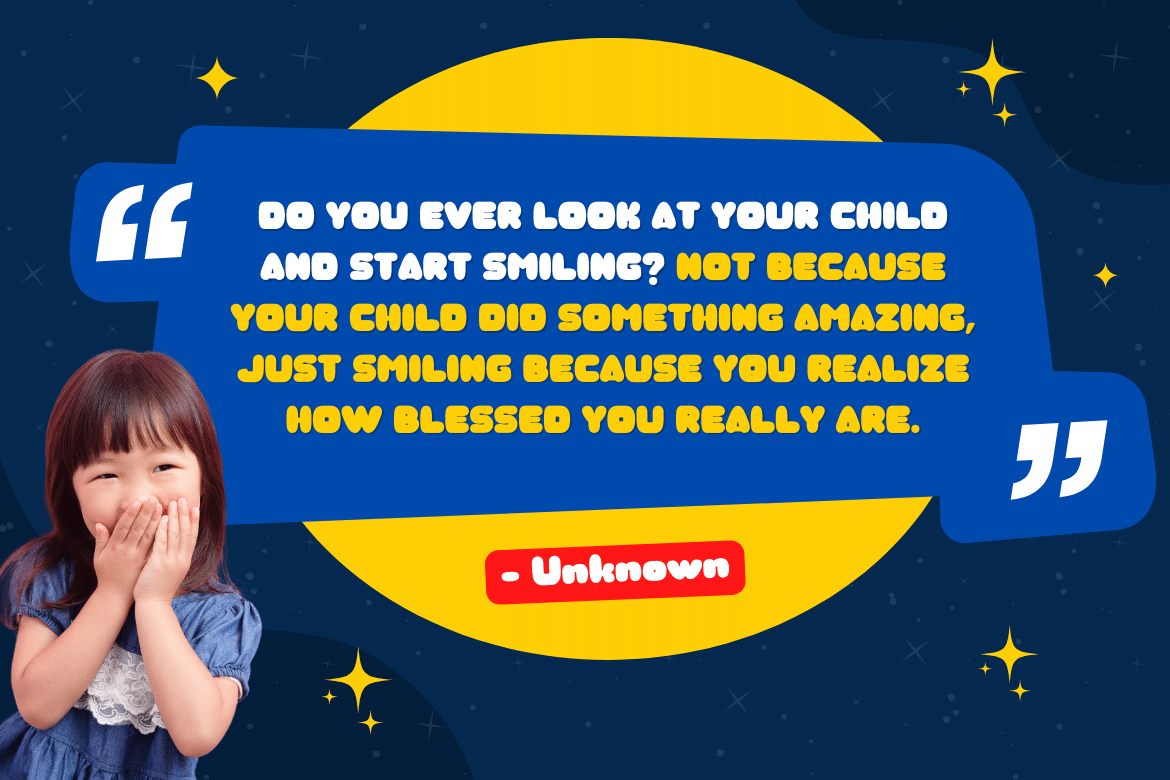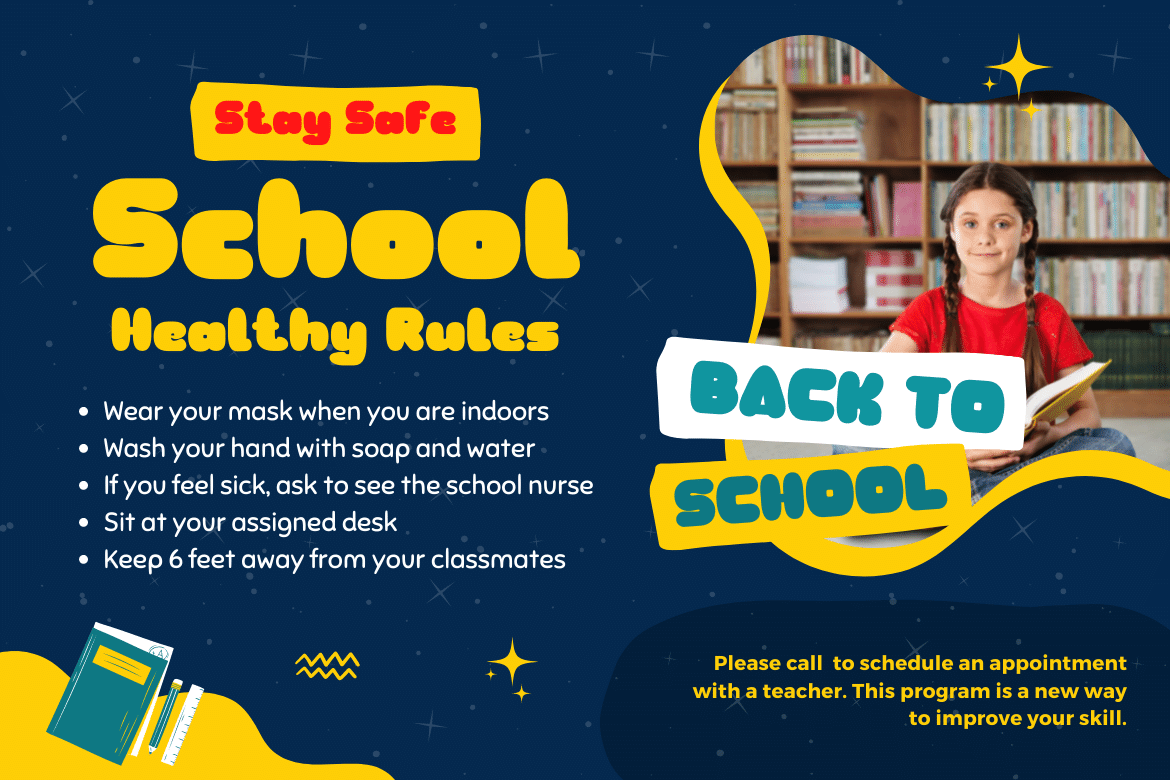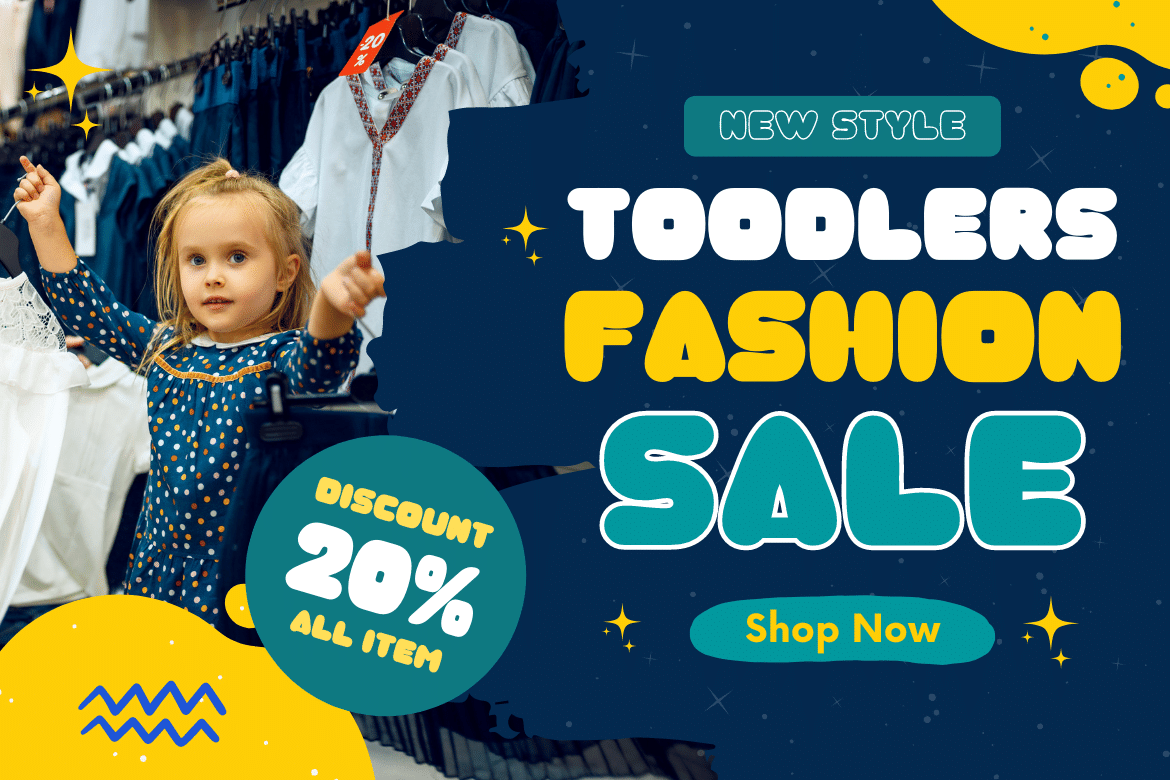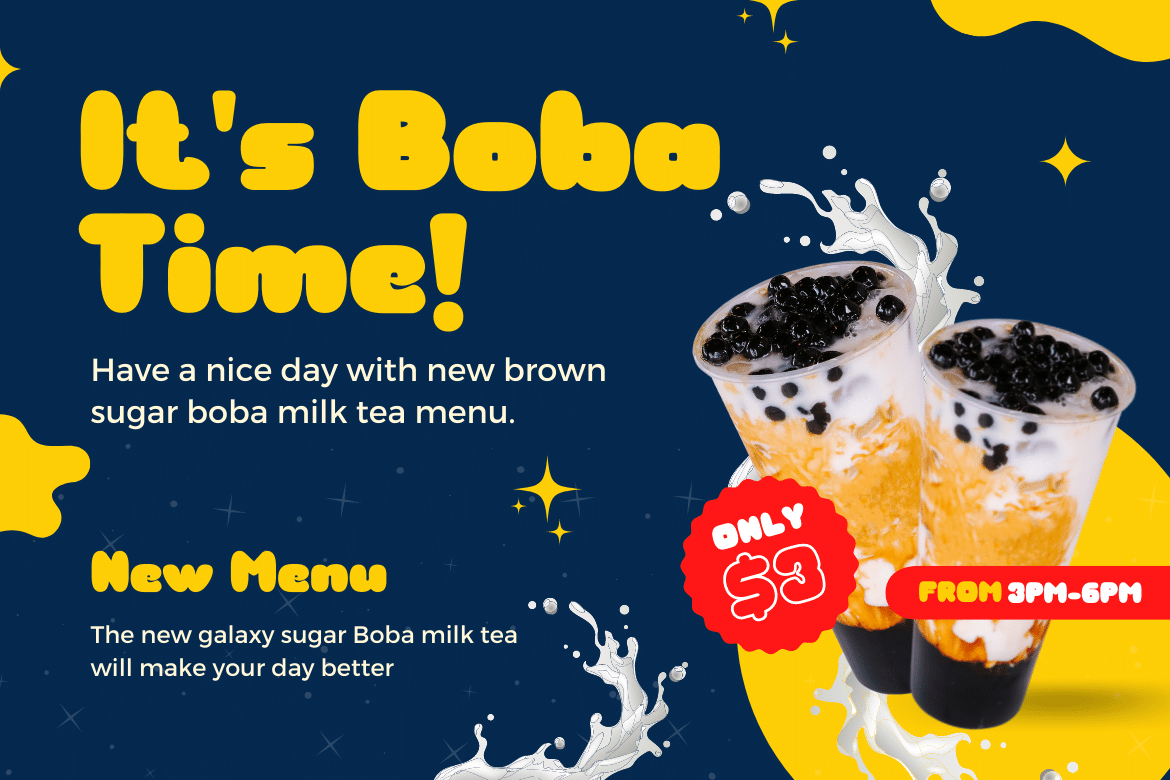
Kembol Font
Kembol Display Font
This font is perfect for you to use in a variety of visual projects, use a unique combination of type designs to create a beautiful and captivating visual impression. This is a quirky and cute font that includes lots of fun and creative touches. The result will be a great reminder that can be used in any design project you want.
of course, your various design projects will be perfect and extraordinary if you use this font because this font is equipped with a font family, both for titles and subtitles and sentence text, start using our fonts for your extraordinary projects.